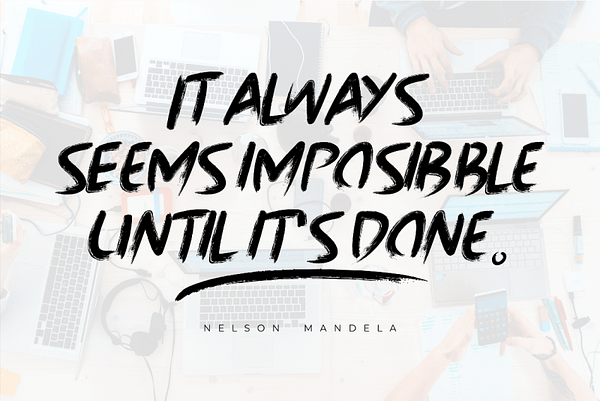
Black Unicorn is a brush-style handwritten font. This font features lots of alternate ligatures and swashes to make it really look like your own handwriting. Bring up swashes easily, just type the underscore character a few times. Perfect for your creative projects this season. This font is PUA encoded which means you can access all of the glyphs and swashes with ease!
- Ton of glyphs
- Ligature & Alternate
- PUA Encoded Characters – Fully accessible without additional design software.
- Fonts include multilingual support for; Afrikans, Albanian, Czech, Danish, Dutch, English, Estonian, Finnish, French, German, Hungarian, Italian, Latvian, Lithuanian, Norwegian, Polish, Portuguese, Slovak, Slovenian, Spanish, Swedish.